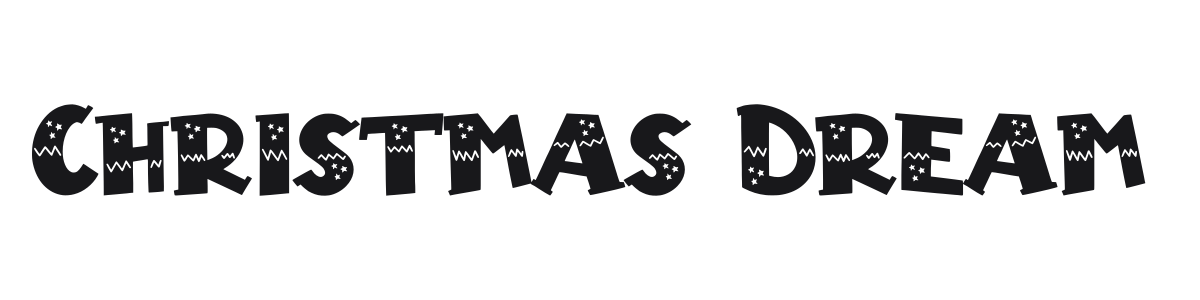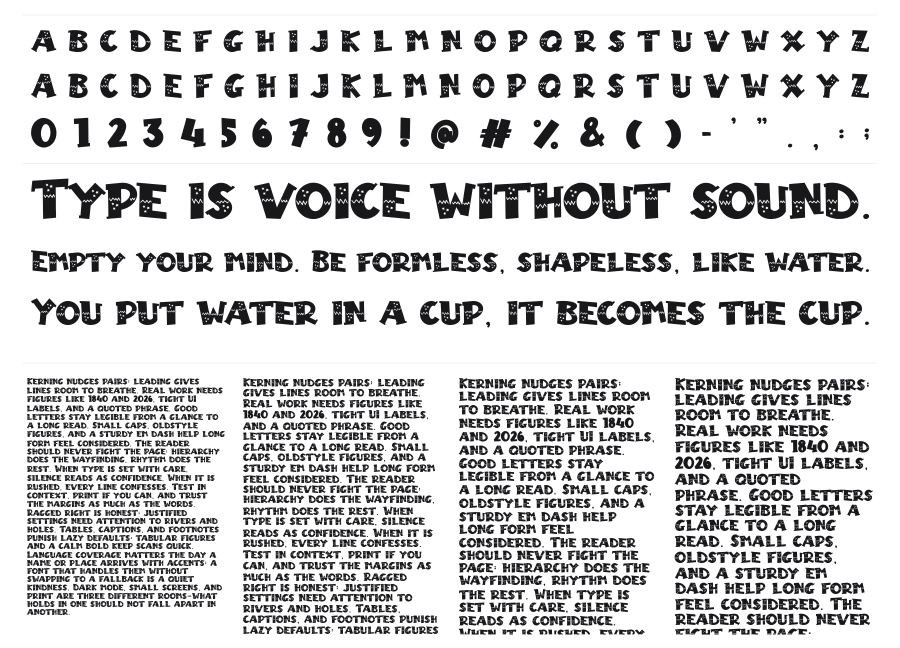
Christmas Dream
by Hatf Type · Website
Christmas Dream is a bold, chunky holiday display font decorated with tiny snowflakes and dots embedded right into the letterforms. The irregular, hand-crafted edges give it a warm, homemade feel rather than a slick commercial finish. Built for seasonal headlines, greeting cards, and festive packaging at large sizes.